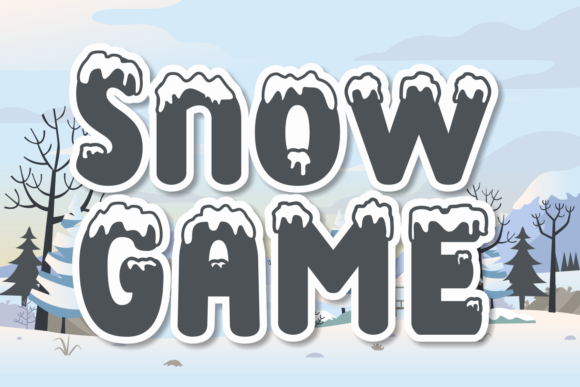
Dive into a winter wonderland of fonts with Snow Game Font, a delightful decorative font family that captures the magic of the holiday season. This enchanting font, designed by Creative Fabrica Fonts, is the perfect companion for your Christmas and winter-themed creations.
Imagine the joy of creating festive invitations, cards, social media posts, and website designs that sparkle with the spirit of the season. The Snow Game Font effortlessly transforms your words into a snowy masterpiece, adding a touch of cheer and delight to every project.
Each character in this font family is adorned with a delicate layer of snow, evoking the feeling of a peaceful winter morning. The crisp, clean lines of the font provide a sturdy foundation for your designs, ensuring that your message shines through with clarity and elegance.
With Snow Game Font, the creative possibilities are endless. Use it to create enchanting logos, eye-catching headlines, heartwarming storybooks, and much more. Its versatility extends beyond the Christmas season, making it a wonderful choice for snowy landscapes, winter sports, and cozy, heartwarming designs.
Unleash your creativity and bring your winter and Christmas visions to life with Snow Game Font. Its playful and festive charm is sure to leave a lasting impression on your audience, creating designs that resonate with the magic of the season.